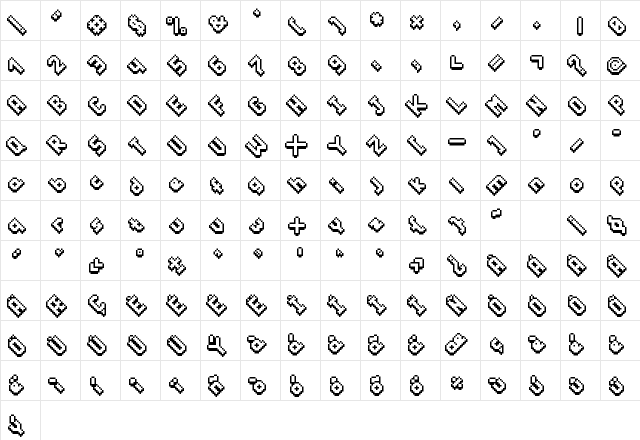
Plonbic Medium
Design Context for Plonbic Typeface
Plonbic is a composed and adaptable typeface that performs quietly and consistently across a wide range of design contexts.